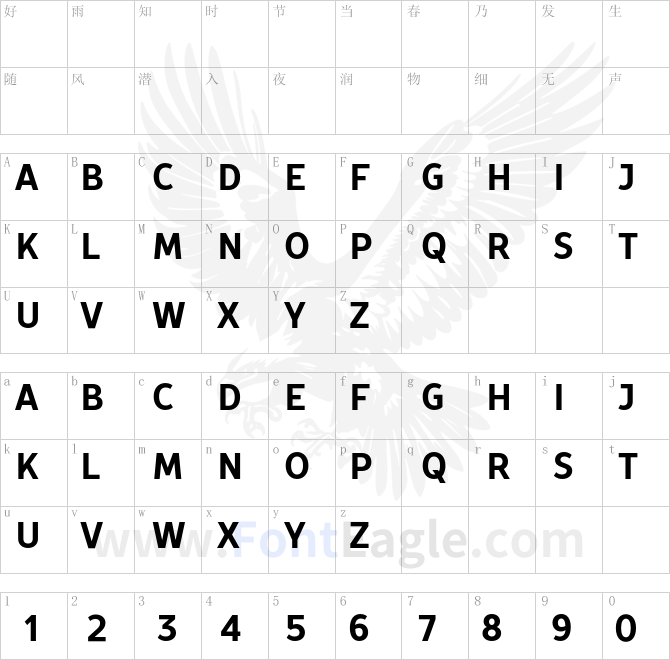
- Font name:TT Prosto Sans Condensed DEMO
- Font Subfamily ID:Typetype: TT Prosto Sans Condensed DEMO Bold: 2015
- Font Full Name:TTProstoSansCondensedDEMO-Bold
- Postscript:TTProstoSansCondensedDEMO-Bold
- Font Copyright:Copyright (c) 2015 by Typetype. Designer Ivan Gladkikh, technical designer Olexa Volochay. All rights reserved.